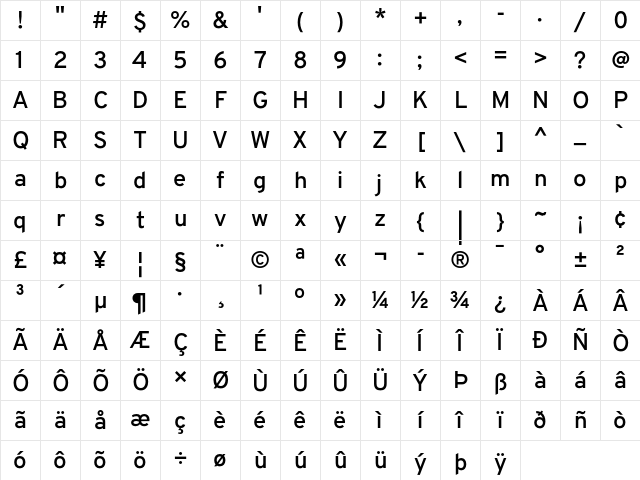
Complete Overpass Nerd Font Bold glyph index. Displaying only characters natively supported by Overpass Nerd Font Bold font.
Overpass Nerd Font is a composed and adaptable typeface that performs quietly and consistently across a wide range of design contexts. Its bold stroke weight gives it real presence on the page.
Pro Tip: Use Overpass Nerd Font in both headline and body roles to test its range before committing to a single application.